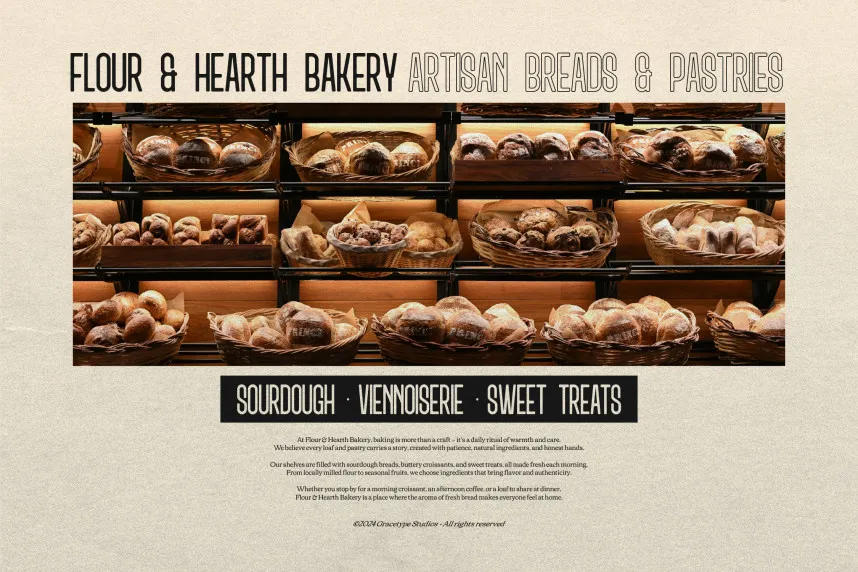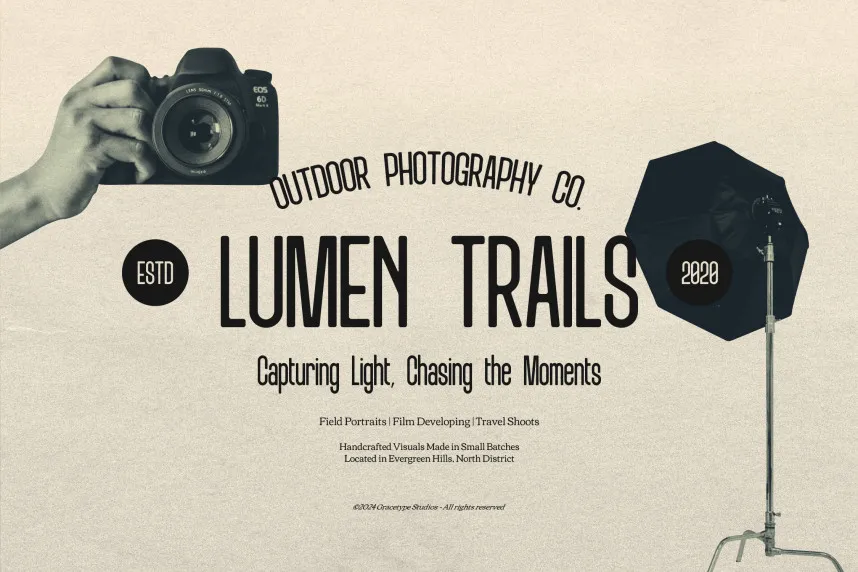
Ridjames Font is a bold and confident typeface that makes a strong visual impact. Its letters are crafted with precision, giving every word a stylish and powerful look. Designers love using it for logos, posters, and social media graphics because it stands out with ease.
The font carries a sense of modern elegance that fits both professional and creative projects. It has clean lines that give a sense of order and clarity, making text easy to read even at smaller sizes.
This font works beautifully for branding projects that need to express confidence and reliability. It can be used for headlines, product packaging, or advertisements that demand attention.
Its stylish curves and balanced structure give it a premium feel. The smooth flow of each letter makes it visually pleasing and comfortable to read.
Ridjames Font Family
You can use this font to create memorable titles, modern business cards, and website banners. It fits perfectly into both minimal and expressive designs.
Type Display Sans
Ridjames Font is a complete choice for anyone who wants a modern and bold look without losing readability and style.